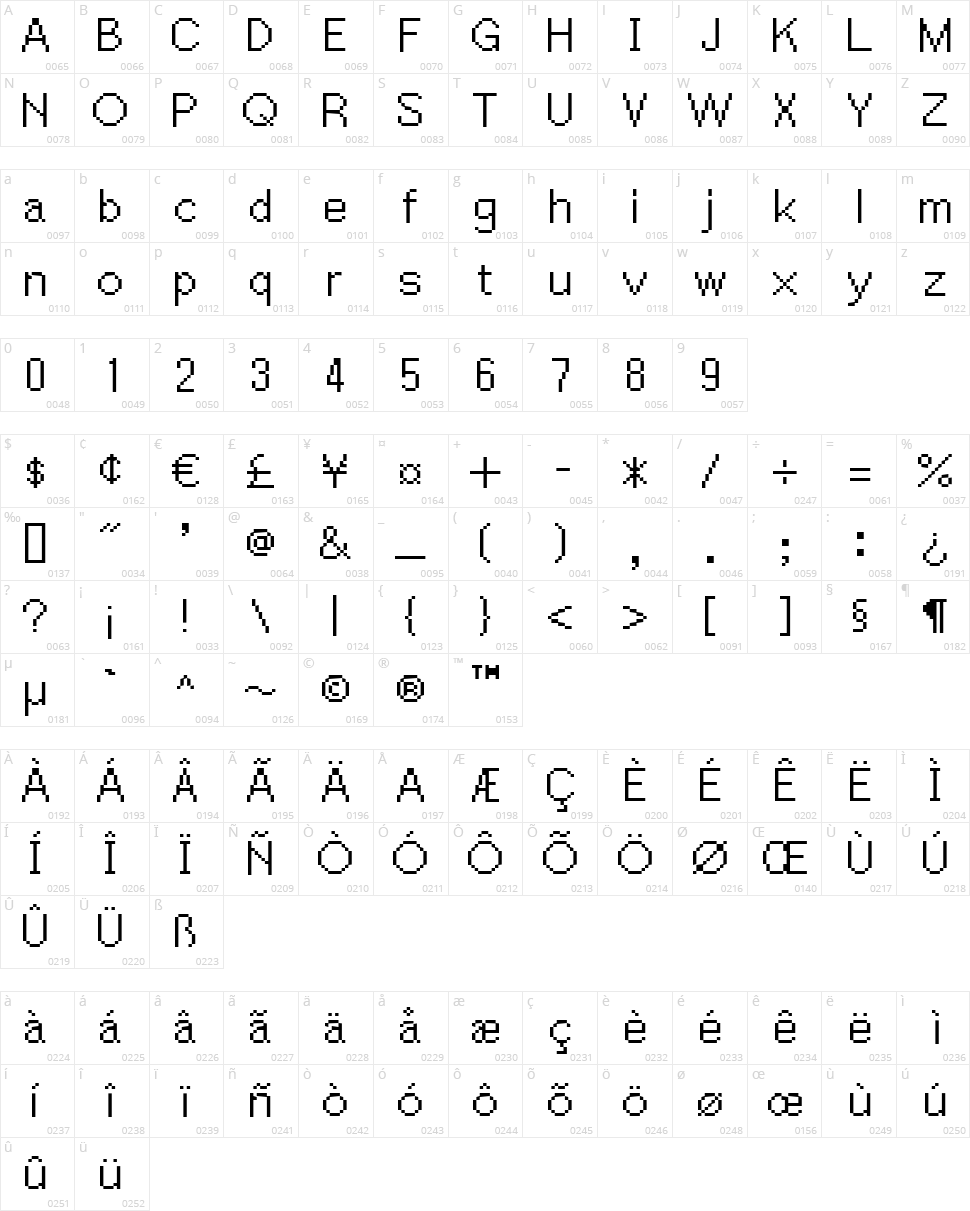
Igiari
Igiari by Caveras - based on the original main text pixel font used in
the Ace Attorney video game series for Game Boy Advance and Nintendo DS
(Capcom, 2001-2011).
Flash. The font in this archive is a pixel font and best displayed at a
font-size of 8 and multiples of this number.
Designer Name: Caveras